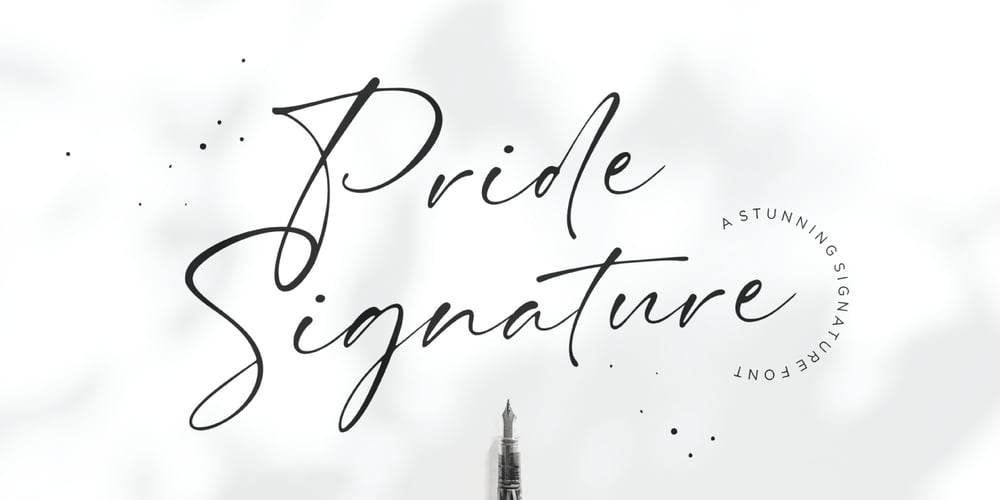
Pride Signature Font Family was designed by Annas Alam Yahya and published by Letteralle. Pride Signature contains 1 styles and family package options. I’d like to introduce you Pride Signature! an elegant signature font. Font with natural flow and feminine style. Each letter is deliberately imperfect to make it look more natural and charming. Pride Signature comes with multilingual support, long range ligature, and ending swash from a-z.Pride Signature is perfect for many design needs such as merch, T-shirts, titles, book covers, social media posts, websites, events, and many more.Enjoy the font,Thanks!